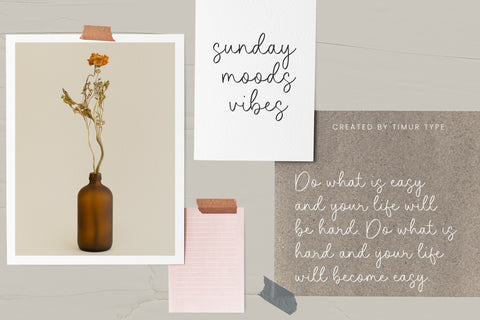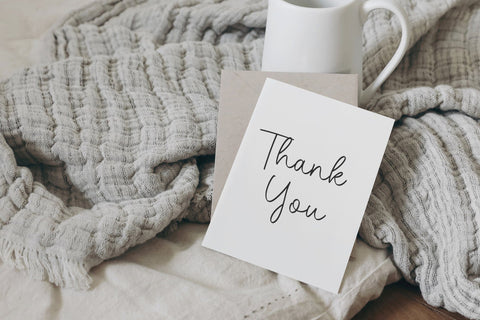
Calistha Aesthic - Handwritten Script font
Calistha Aesthic - Handwritten Script font , which was created with great care and specially created for you
Calistha Aesthic is perfect for product packaging, branding project, megazine, social media, wedding, or just used to express words above the background.